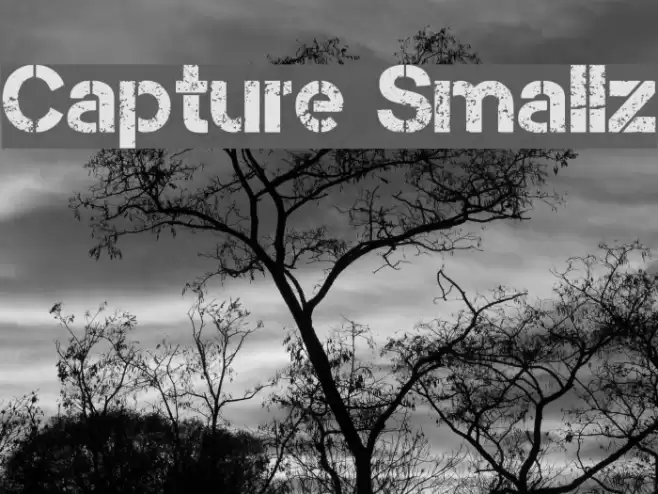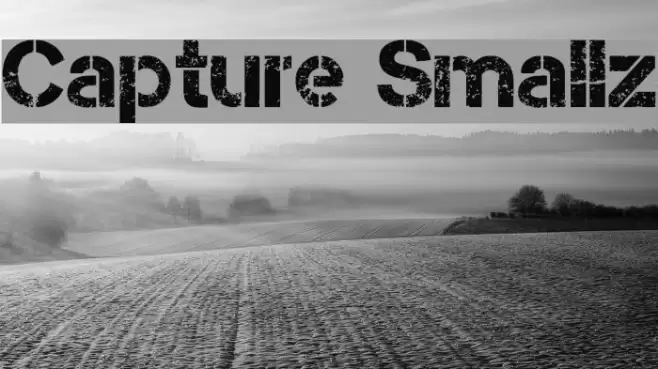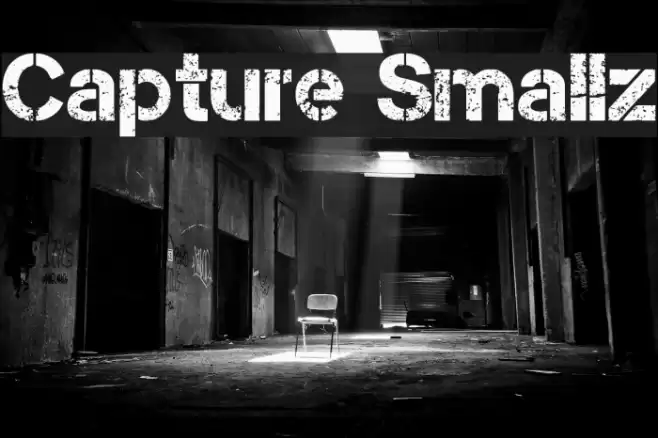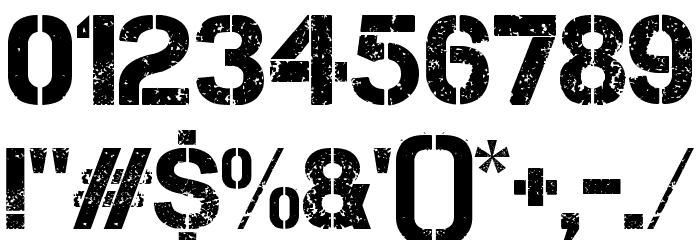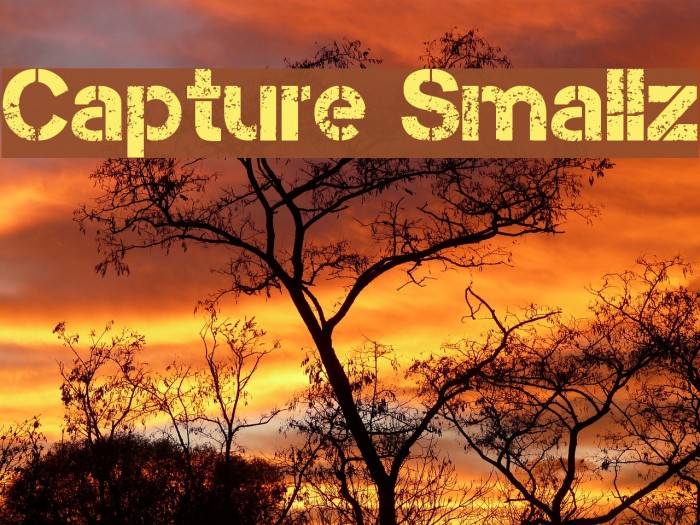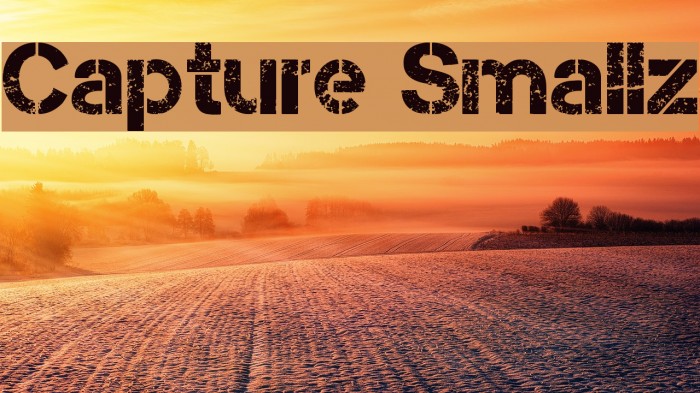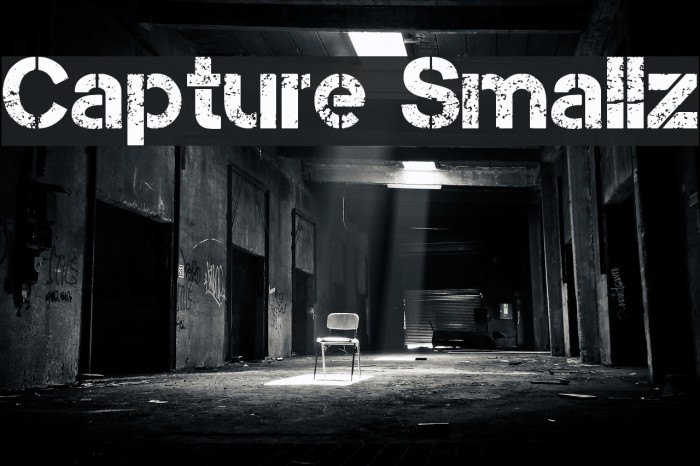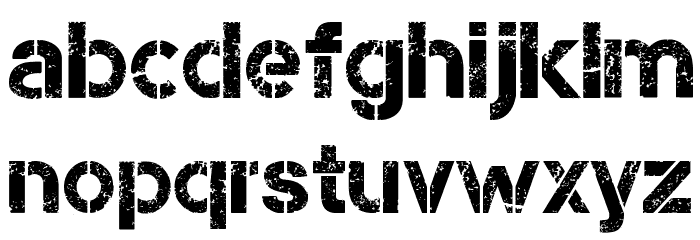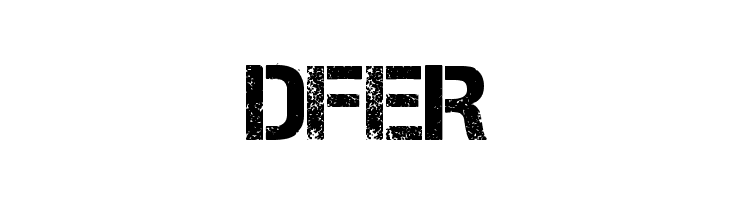
Capture Smallz Font
Capture Smallz Description
This font features a bold, distressed style with a textured, grunge appearance. The characters are uppercase and lowercase, along with numbers and special symbols. The design gives a worn, vintage feel, reminiscent of old posters or signage. The boldness of the letters makes them stand out, while the distressed texture adds a unique character, making it ideal for projects that require a rugged, edgy look. The font maintains a consistent width and weight throughout, ensuring readability despite its decorative elements.
A bold, distressed font with a grunge, vintage appearance from Uncategorized fonts.
- Proposed Projects: Ideal for posters, album covers, branding for edgy or vintage-themed products, and any design needing a bold, textured look.
- Overall Style: Vintage, Grunge